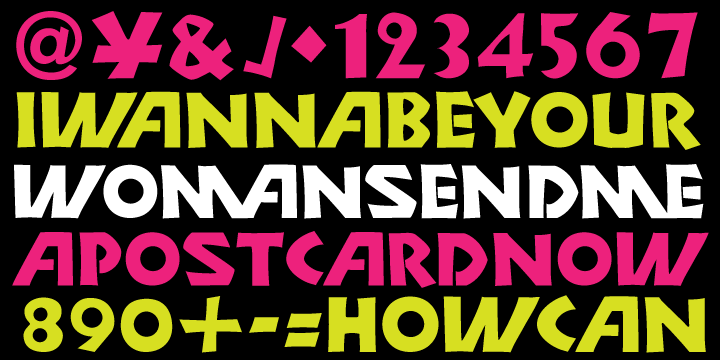
Neuerland is an attempt to update Rudolf Koch’s traditional hand-cut display typeface, adding ligatures and alternate characters inspired by the forms of Herb Lubalin and Tom Carnase’s Avant Garde.